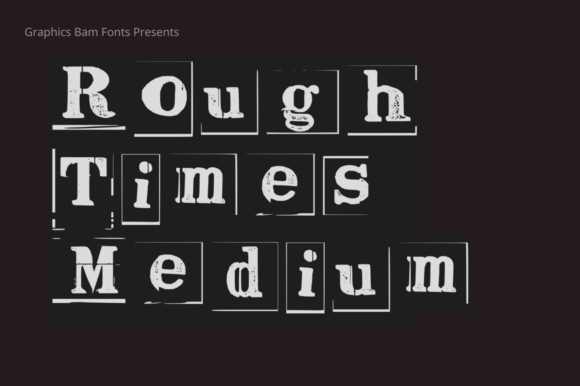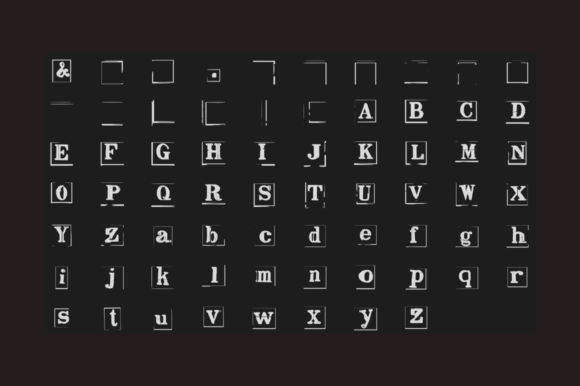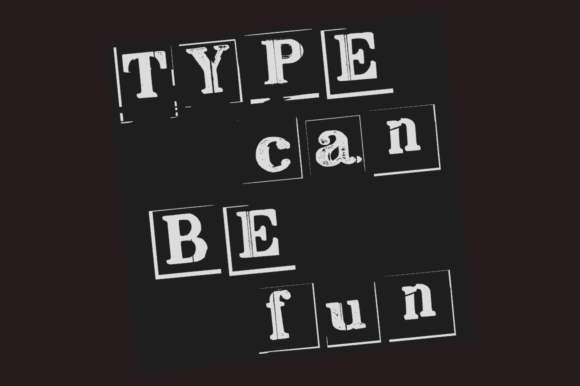
About the Rough Times Medium Font Font
From logos to headlines, the Rough Times Medium Font Font is the perfect choice for making a lasting impression. Rough Times is a rough textured display font. It is perfect for product packaging, branding project, magazine covers, social media, wedding, or just used to express words above the background.
Rough Times Medium’s strong texture makes it ideal for headlines, short impactful statements, and logos where a bold, rugged aesthetic is desired. It excels in branding for products emphasizing craftsmanship, authenticity, or a vintage feel, and is equally effective on posters and packaging. However, its highly textured nature makes it unsuitable for body text or UI elements, where readability is paramount.
Its inherent boldness pairs well with clean, minimalist sans-serif fonts like Helvetica Neue or Open Sans for contrast and balance. For a more vintage feel, consider pairing it with a classic serif like Garamond or Didot. Avoid pairing it with other heavily textured or overly decorative fonts, as this would create visual clutter.
The font exudes a rugged, confident personality. Brands that prioritize authenticity, durability, and a slightly rebellious spirit will find it a strong visual representation.